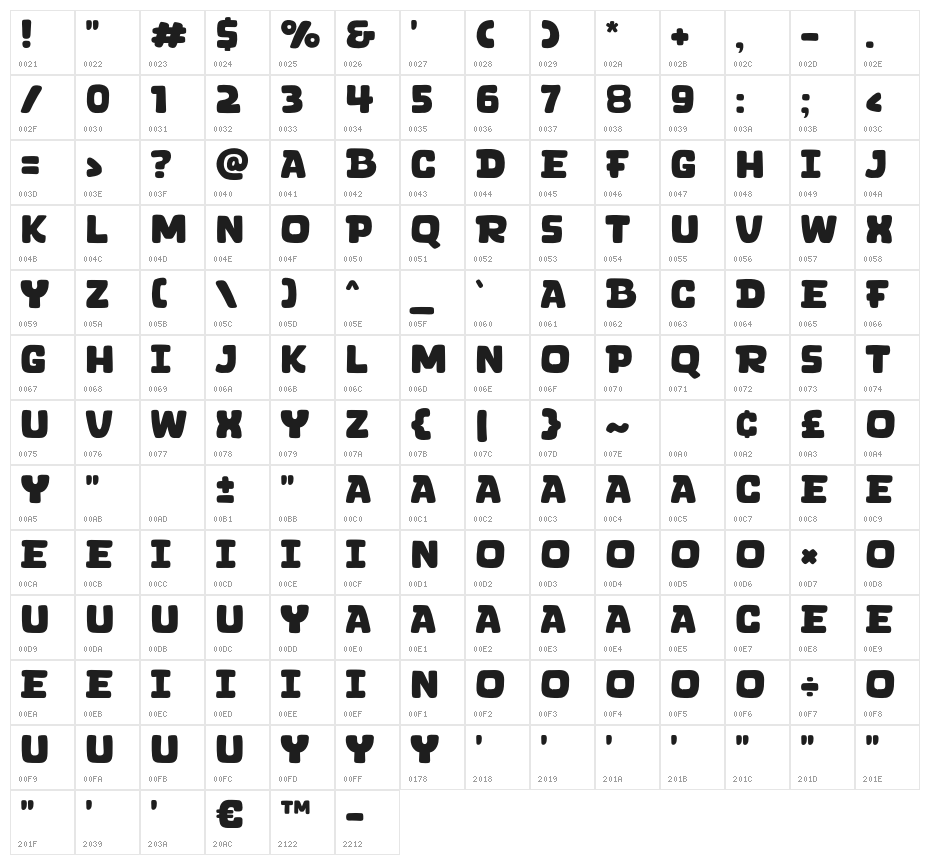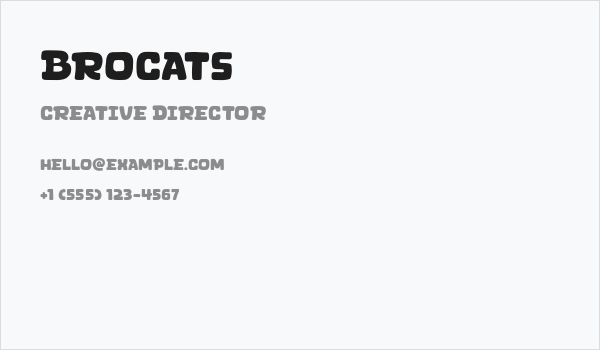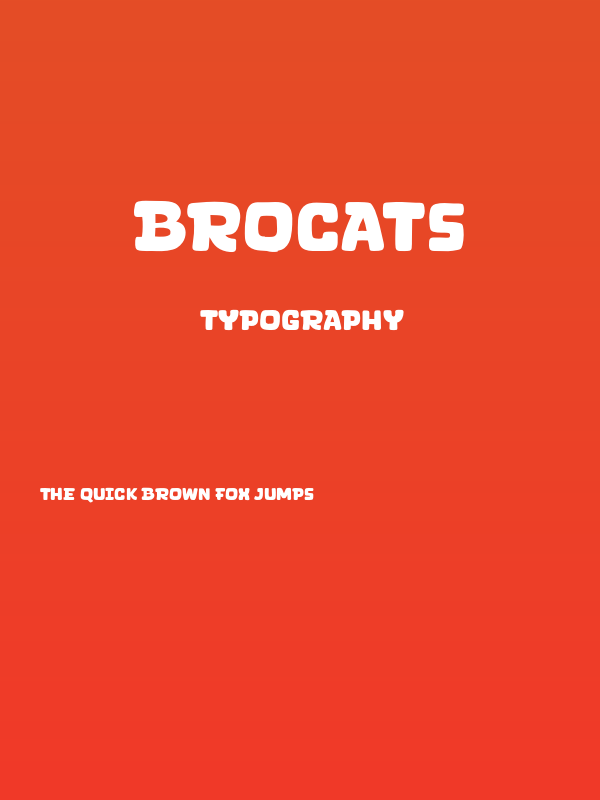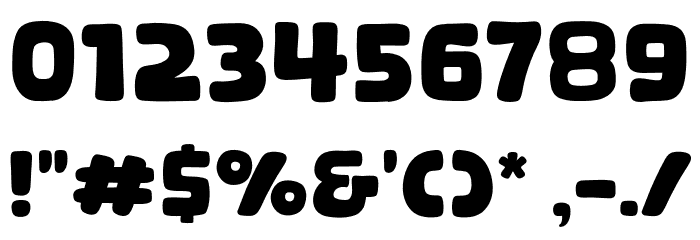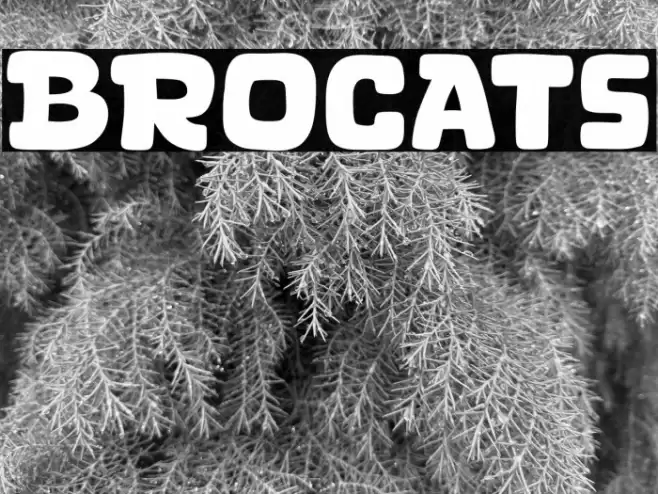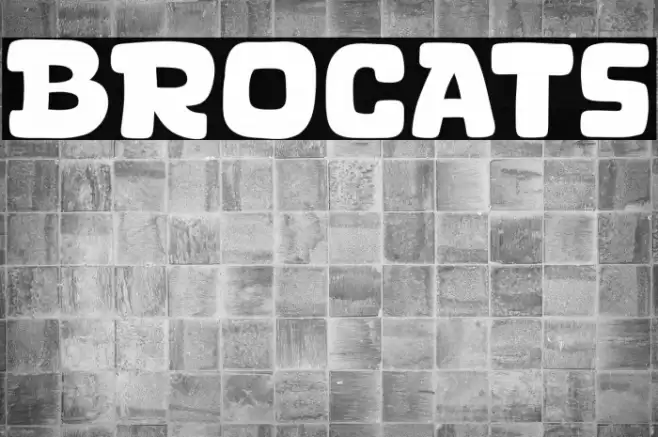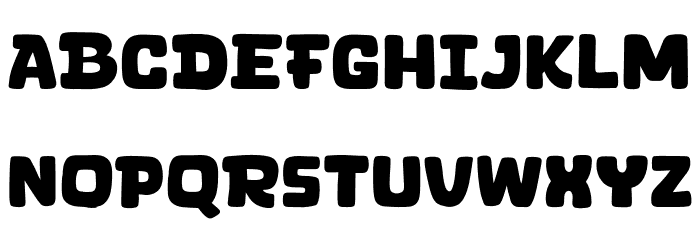
Brocats Font
Brocats Description
This font features a bold and playful design with rounded edges and a chunky appearance. The characters are uniformly thick, giving them a strong presence on the page. The style is reminiscent of retro or vintage aesthetics, with a touch of modern flair. The letters are evenly spaced, ensuring readability while maintaining a cohesive look. The numbers and special characters follow the same design principles, making them consistent with the overall style. This font is ideal for projects that require a fun and engaging look, such as children's books, posters, or branding materials.
| Overall Style | Retro, Modern |
| Proposed Projects | Ideal for children's books, posters, branding, and playful designs. |